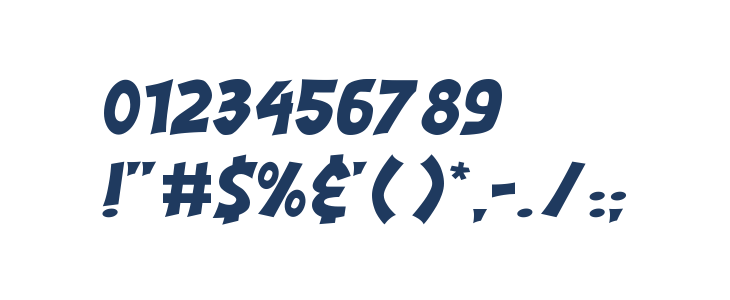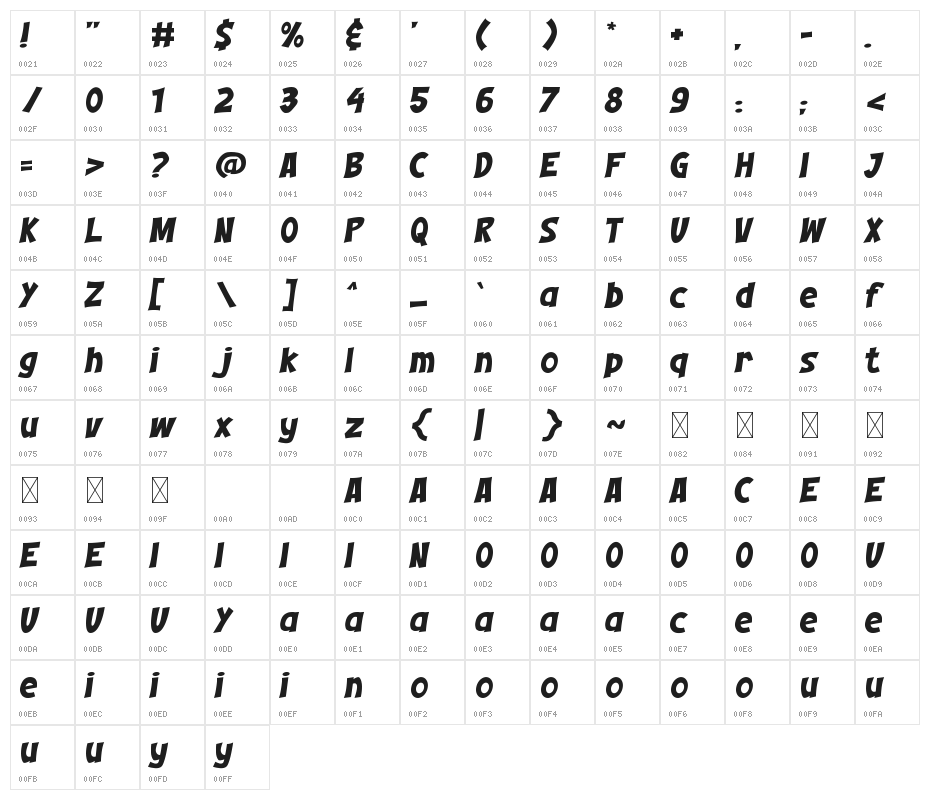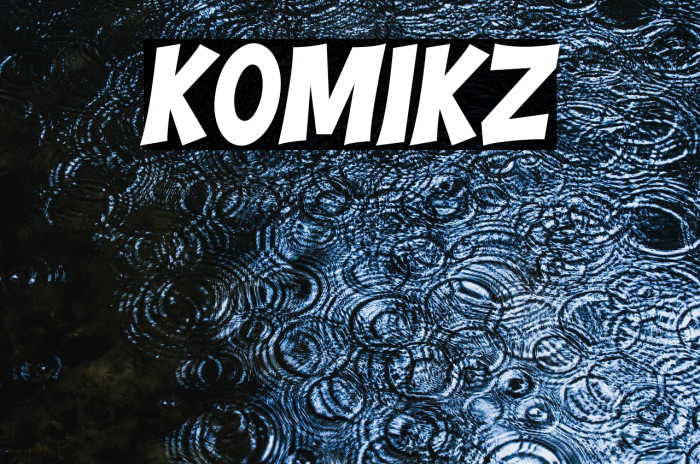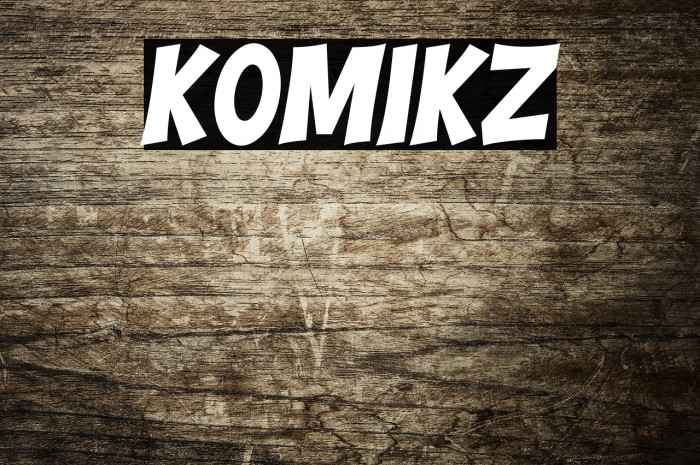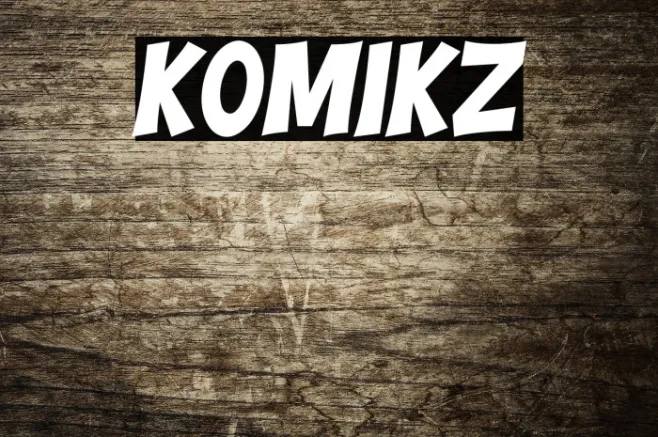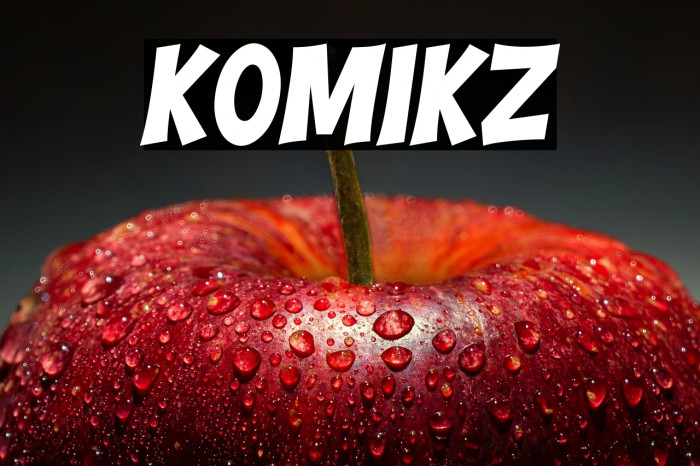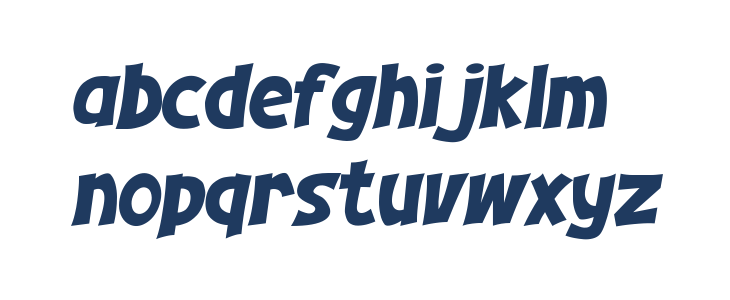
KOMIKZ Font
KOMIKZ Description
This font features a bold and playful style, characterized by its exaggerated curves and dynamic angles. The letters are slightly slanted, giving a sense of movement and energy. The strokes are thick and consistent, providing a strong visual impact. The font includes both uppercase and lowercase letters, numerals, and a variety of special characters. Its design is reminiscent of comic book lettering, making it ideal for projects that require a fun and informal tone.
| Overall Style | Playful, Comic |
| Proposed Projects | Ideal for comic books, children's books, playful branding, and posters. |